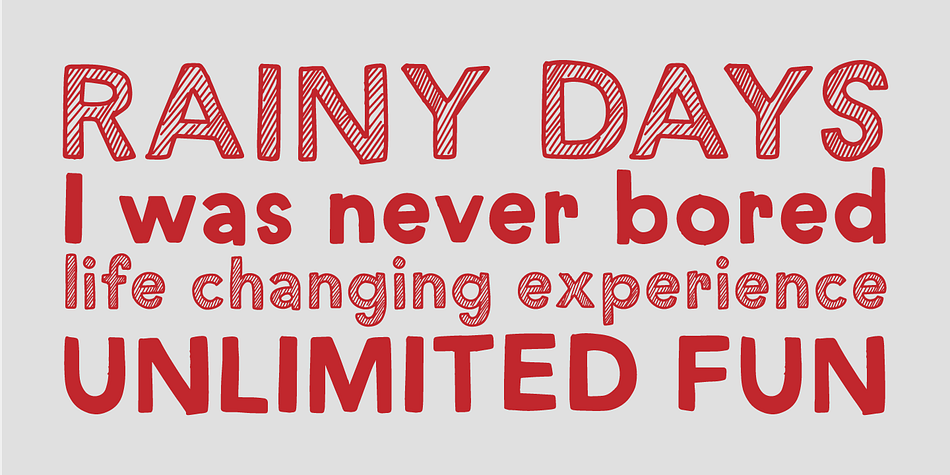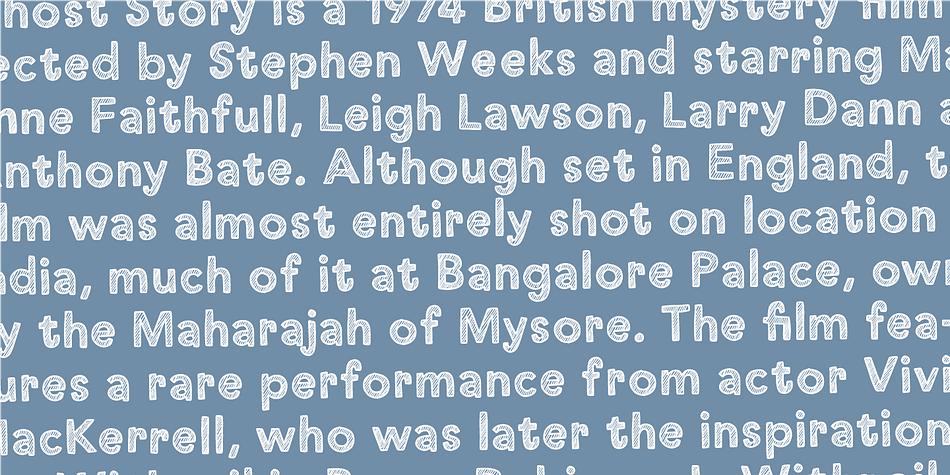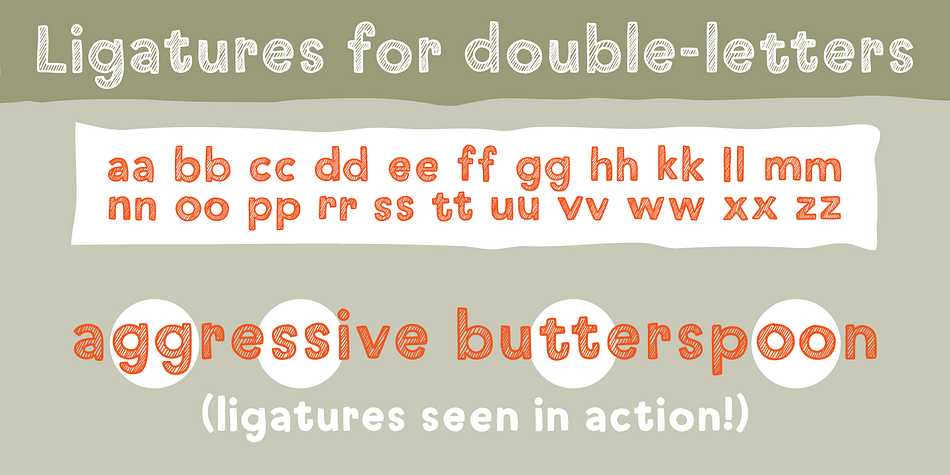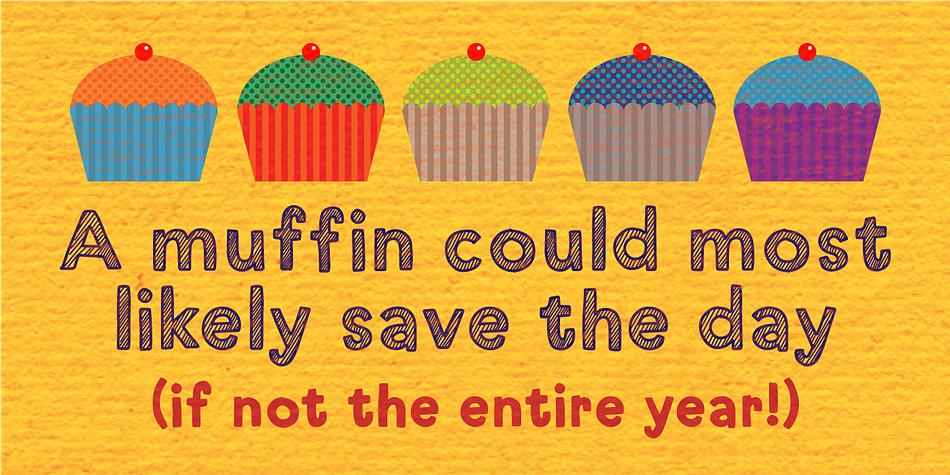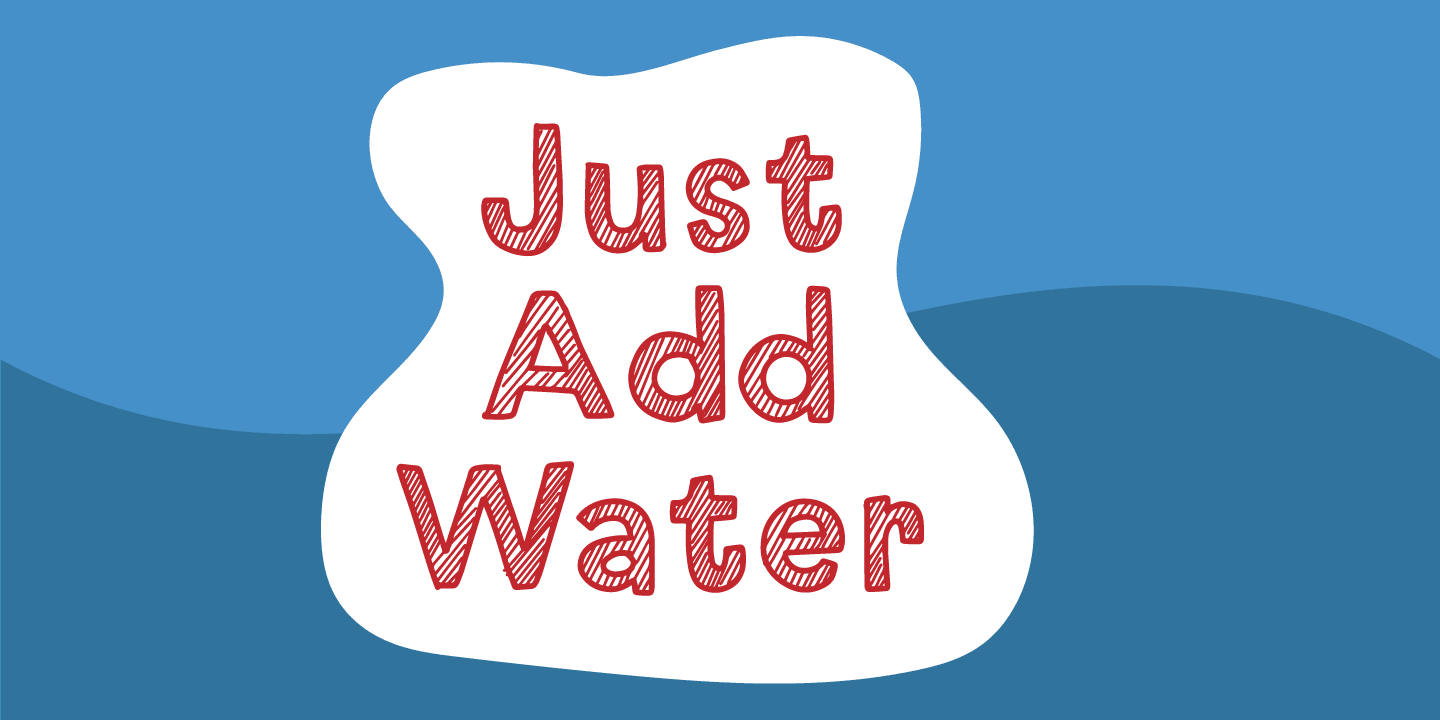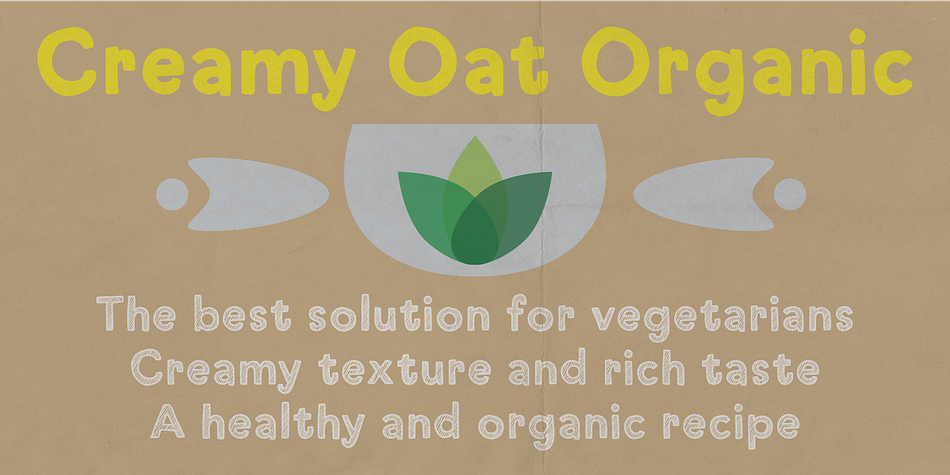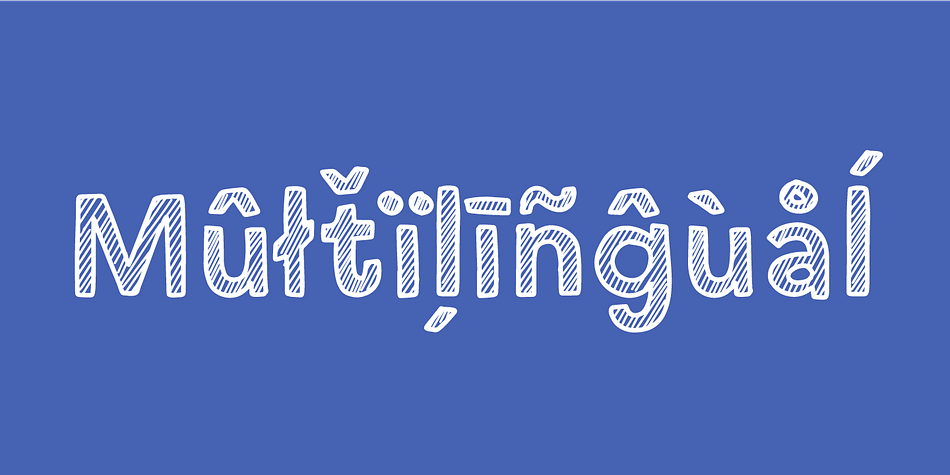
Designed by Jakob Fischer, Just add water is a hand display and kids font family. This typeface has four styles and was published by Pizzadude.dk.
Just add water and mix! Sometimes it is so easy to make a cake! In this case, it is also very easy to make something really good looking using this font. Actually, all you need is to add one of the flavours: Regular, Italic, Black or Black Italic, and your design suddenly looks super neat!
Ingredients: 4 fonts, multilingual support, fi and fl ligatures as well as ligatures for most common double-letter substitution. Shake well and enjoy!